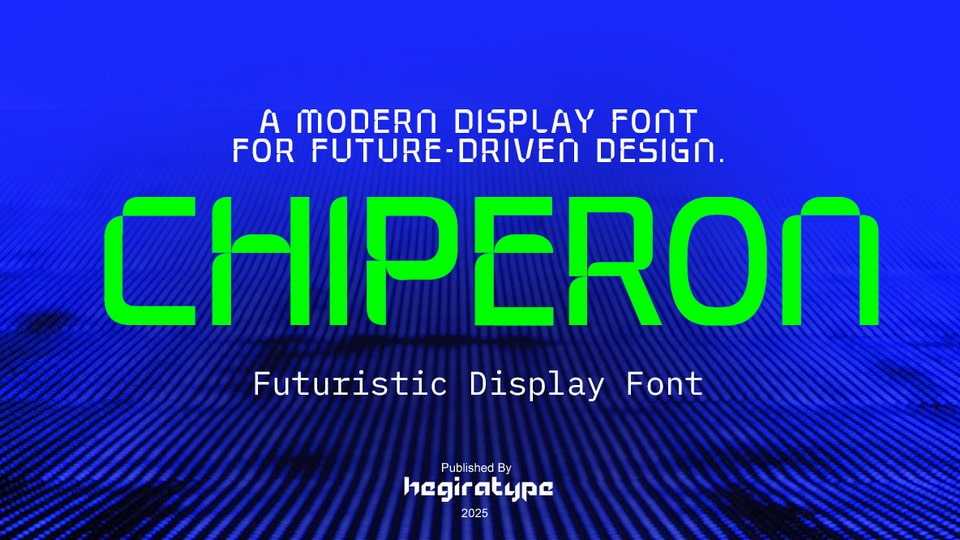
Download Chiperon font, a modern futuristic display typeface crafted to embody the spirit of advanced technology, precision, and minimalist aesthetics.